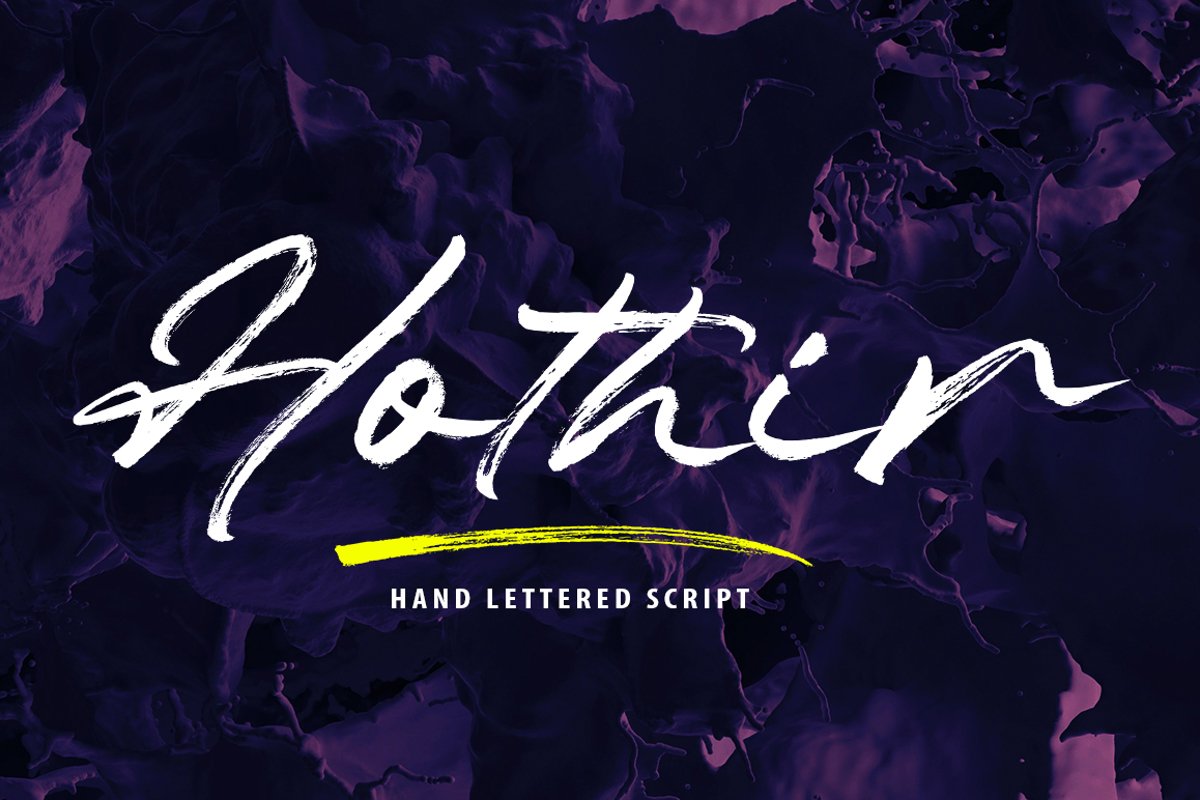
Hothir
Hothir Underline
Hothir
Hothir is a font that is scratched with a brush, to get a natural texture, so this font will display the characteristics of the hand. Beautiful textured brush fonts, contemporary approach to design, natural handmade and with a cool underline. It also has several binders and alternatives that make your design more attractive.
Suitable for use in watercolor designs or as hand-brushed bold letters. Such as novels, clothing, invitations, quotes, title books, stationery designs, branding, logos, greeting cards, T-shirts, packaging designs, posters and much more.